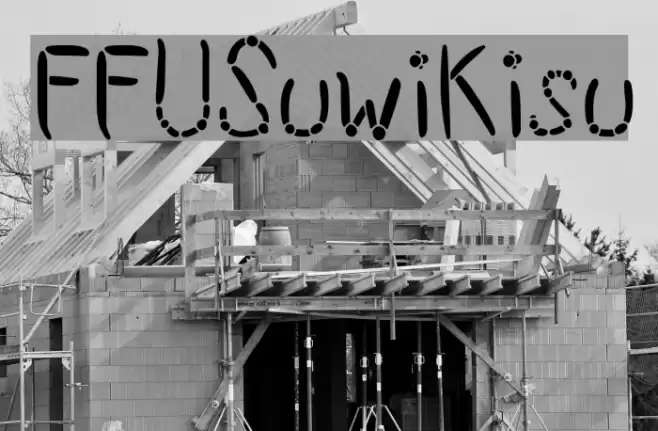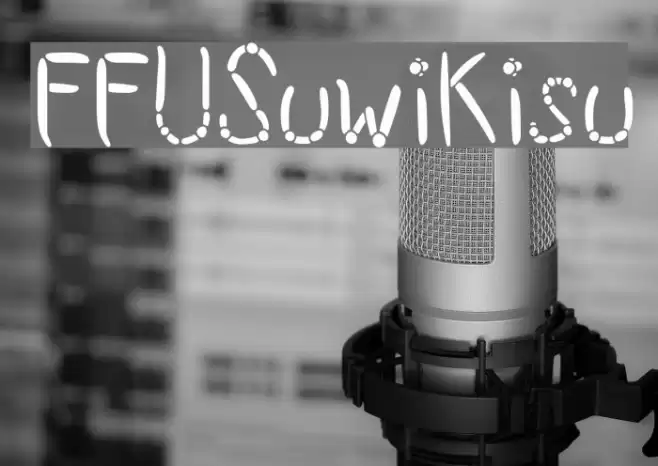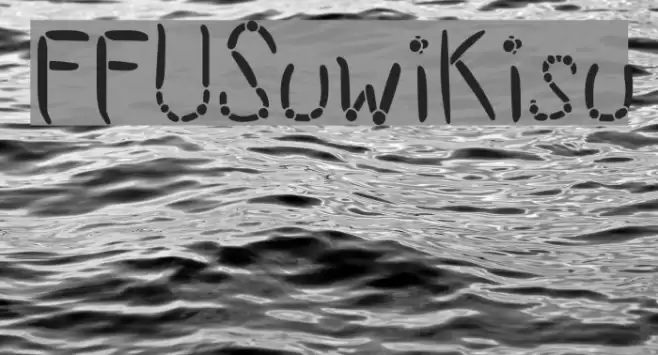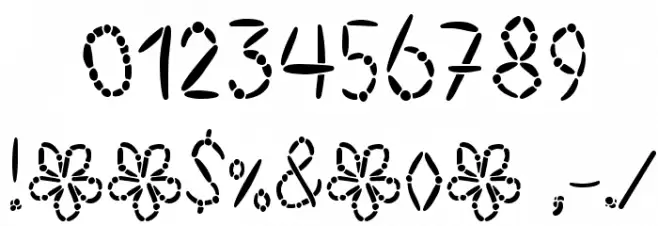
FFUSuwiKisu Font
FFUSuwiKisu Description
This playful and decorative font features a unique design where each character is composed of a series of dots and dashes, creating a whimsical and eye-catching appearance. The uppercase and lowercase letters maintain a consistent style, with rounded edges and a slightly irregular alignment that adds to the charm. The numbers and special characters follow the same dotted pattern, ensuring uniformity across the entire typeface. This font's distinct style makes it ideal for projects that require a fun and informal touch.
A playful, dotted decorative font with a whimsical style from Uncategorized fonts.
- Proposed Projects: Ideal for children's books, playful branding, party invitations, and creative posters.